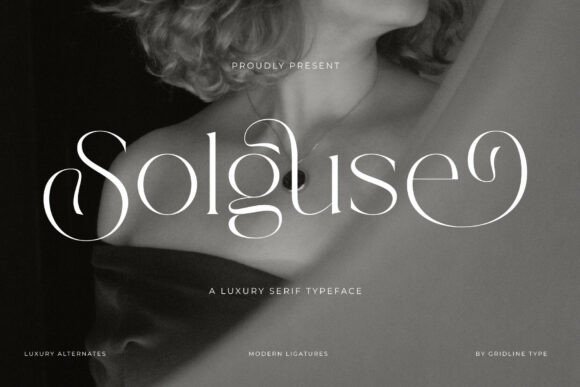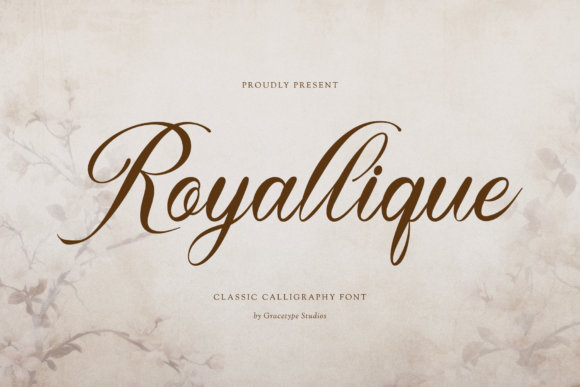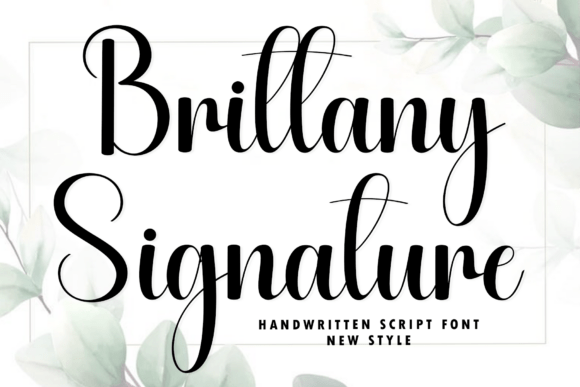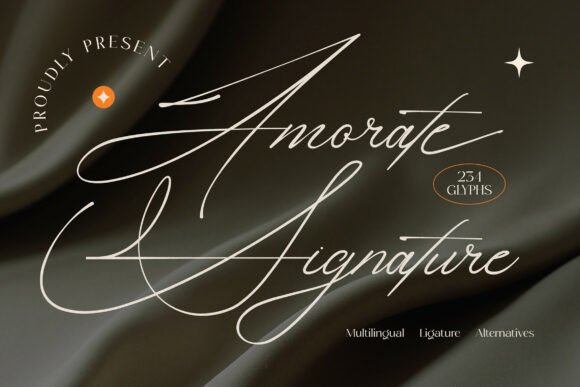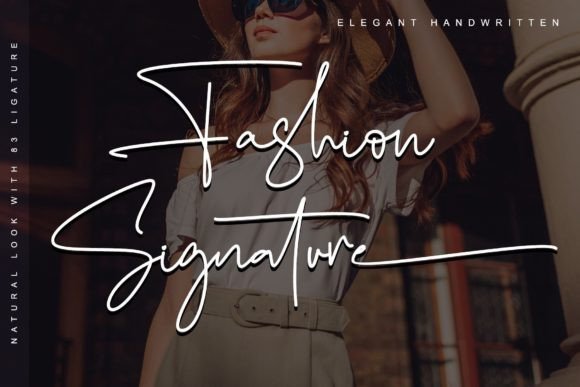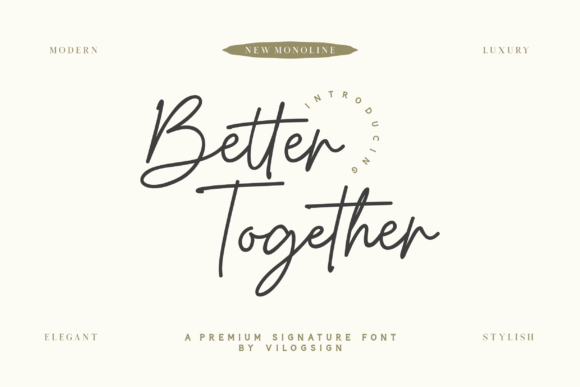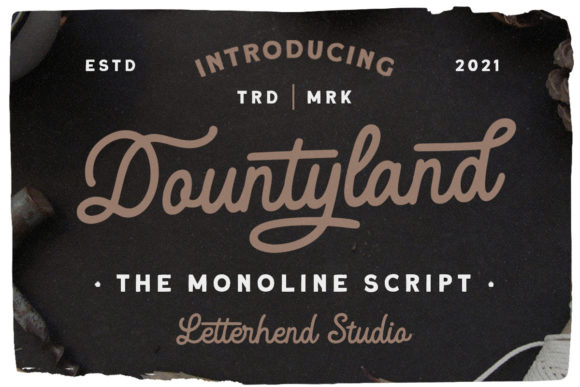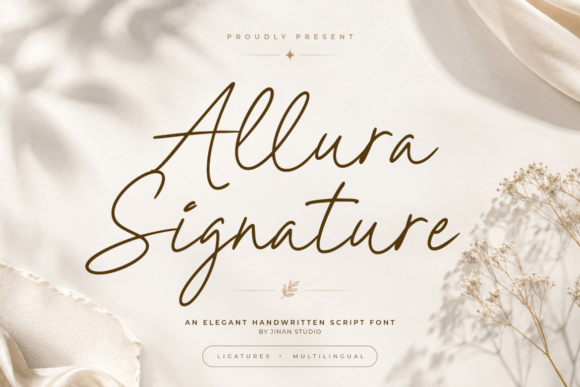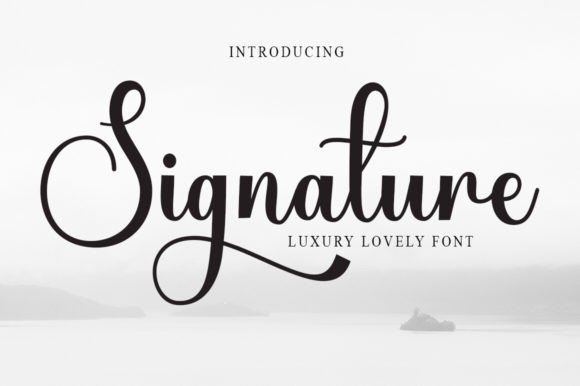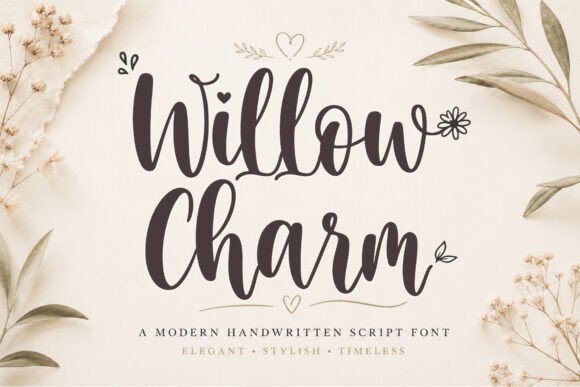
20 Graceful Signature Fonts for Logo Design (2026)
Signature fonts for logo design sell something no other style can: the feeling that a real person stands behind the brand. A flowing, hand-signed wordmark reads personal, premium and trustworthy, which is why founders, photographers and beauty brands reach for it. The best signature fonts for logo design stay legible while looking effortlessly hand-written.
This guide sorts 20 fonts by the look they give a logo, luxury signatures, modern monoline scripts, personal hand-signed faces and serif-script duos, so you can pick by use.
How to use signature fonts for logo design
A signature logo lives or dies on legibility. A few rules keep signature fonts for logo design readable and premium.
- Keep it short: a signature flatters a name or two words, not a sentence.
- Use the alternates: swashes and joining letters fine-tune the flow.
- Pair with a sans: set a clean sans tagline under the script for balance.
- Test small: thin connecting strokes can vanish at favicon size.
Luxury signature fonts for premium logos
Start here. These luxury signature fonts for logo design give a premium brand a refined, hand-signed wordmark.
Luxodia Signature
Luxodia Signature is a luxury signature font built for elegance. Among signature fonts for logo design it makes a premium hand-signed wordmark, with flowing strokes that read expensive. Keep it to the brand name and a clean sans tagline. The graceful flow stays legible at a generous size. For a premium brand that wants a luxury signature logo, Luxodia Signature is a refined script worth a close look.
Solguse
Solguse pairs poetic romance with high-fashion prestige. Among signature fonts for logo design it gives a beauty or fashion brand a runway-grade signature wordmark. Keep it to the name and a short accent, with a clean sans below. The romantic strokes read best large. For a fashion brand that wants a romantic, prestigious signature logo, Solguse is a graceful script worth trying.
Royallique
Royallique brings aristocratic sophistication to a layout. Among signature fonts for logo design it lends a luxury brand a regal, hand-signed flourish. Keep it to the brand name, lean on the swashes, and pair it with a clean sans for support. The ornate strokes want room. For a premium brand that wants a grand, aristocratic signature logo, Royallique is a striking script worth a look.
Brittany Signature
Brittany Signature carries timeless grace and effortless romance. Among signature fonts for logo design it makes a soft, romantic wordmark, good for weddings, beauty and lifestyle brands. Keep it to the name and a clean sans tagline. The flowing forms read warm at size. For a brand that wants a romantic, hand-signed logo, Brittany Signature is a lovely script worth trying.
Amorate Signature
Amorate is an elegant signature script with long, flowing strokes. Among signature fonts for logo design it gives a wordmark dramatic, sweeping movement. Keep it to a short name and use the extended strokes as a flourish, with a clean sans for support. The long forms want a generous size. For a brand that wants a sweeping, dramatic signature logo, Amorate Signature is a graceful script worth a closer look.
Modern monoline signature fonts
Monoline scripts keep an even stroke, so they stay legible small. These modern signature fonts for logo design read clean and current.
Fashion Signature
Fashion Signature is an enchanting handwritten monoline font. Among modern signature fonts for logo design its even stroke keeps it legible while still reading hand-signed, good for a fashion or beauty wordmark. Keep it to the name and a clean sans tagline. The monoline flow stays clear at smaller sizes. For a brand that wants a clean, modern signature logo, Fashion Signature is a graceful script worth a look.
Better Together
Better Together is a monoline script with a modern, current style. Among signature fonts for logo design its even weight reads clean and current, suiting a contemporary brand that wants a friendly signature. Keep it to the name and a clean sans for detail. The monoline forms stay legible small. For a modern brand that wants a clean, approachable signature logo, Better Together is a likeable script worth trying.
Dountyland
Dountyland is a bold, elegant monoline script with a vintage style. Among signature fonts for logo design it adds a retro, hand-signed confidence, good for a heritage or craft brand. The bold even stroke reads clearly at size. Keep it to the name and a clean sans for support. For a brand that wants a bold, vintage signature logo, Dountyland is a characterful script worth a look.
Allura Signature
Allura Signature is a modern, elegant handwritten script. Among modern signature fonts for logo design it reads graceful and current, a flexible signature for beauty, fashion and lifestyle brands. Keep it to the name and a clean sans tagline. The flowing forms stay legible at a comfortable size. For a brand that wants a modern, elegant signature logo, Allura Signature is a graceful script worth trying.
Signature scripts with a personal touch
For a warm, human feel, these hand-signed scripts give a logo real personality and a founder’s signature.
Signature (Cursive)
This Signature font is a heartfelt, beautifully flowing cursive. Among signature fonts for logo design it gives a warm, personal wordmark with a genuine hand-written feel. Keep it to the name and a short line, since cursive joins blur small, paired with a clean sans. The gentle flow reads friendly. For a brand built on a personal, caring story, this cursive Signature is a tender script worth a look.
Willow Charm
Willow Charm is an elegantly designed handwritten font with warmth and sophistication. Among signature fonts for logo design it brings a charming, personal touch to a wordmark, good for a boutique or lifestyle brand. Keep it to the name and a clean sans for detail. The handwritten forms read warm at size. For a brand that wants a charming, hand-signed logo, Willow Charm is a lovely script worth trying.
Magic Action
Magic Action is an enchanting handwriting-inspired font. Among signature fonts for logo design it gives a wordmark a spontaneous, marker-signed energy, suiting a creative or youthful brand. Keep it to the name and a punchy accent, with a clean sans for support. The lively forms read best large. For a brand that wants an energetic, hand-written signature logo, Magic Action is a fun script worth a look.
Cruel Summer
Cruel Summer brings sophistication and elegance to a hand-signed wordmark. Among signature fonts for logo design it reads stylish and a little editorial, good for a fashion or beauty brand. Keep it to the name and a clean sans tagline. The elegant forms read polished at size. For a brand that wants a stylish, signature-style logo, Cruel Summer is a graceful script worth trying.
Signature (Minimal)
This Signature font is the epitome of sophisticated minimalism, with a sleek, pared-back hand. Among signature fonts for logo design it reads clean and modern, a restrained signature for a brand that wants subtlety. Keep it to the name and a clean sans for detail. The minimal forms stay legible small. For a brand that wants a sleek, minimal signature logo, this Signature is a refined script worth a look.
Signature serifs and duos for a full logo
For structure plus flourish, these signature serifs and duos pair a script with a serif so a logo has both polish and a hand-signed accent.
Montegar
Montegar is a modern luxury serif for premium branding and editorial work. Among signature fonts for logo design it is the serif anchor, giving a hand-signed logo a structured partner for the tagline and supporting text. Use the serif for structure and a script for the signature line. The refined forms read premium. For a brand that wants a serif to balance its signature, Montegar is a graceful font worth trying.
Chatos Original
Chatos Original is a refined duo that pairs an elegant serif with a script. Among signature fonts for logo design the duo gives you a structured serif for the name and a signature script for the accent, drawn to agree. Use the serif for the wordmark and the script for a hand-signed line. The pairing reads coordinated. For a brand that wants polish and a signature in one buy, Chatos Original is a smart duo worth a look.
Palm Champagne
Palm Champagne is a stylish handwritten duo that blends elegance with ease. Among signature fonts for logo design it offers a signature script plus a partner, so a logo gets a hand-signed name and a tidy support face. Use the script for the name and the partner for the tagline. The relaxed forms read effortless. For a brand that wants an easy signature duo, Palm Champagne is a lovely set worth trying.
Selora
Selora is a classic editorial serif with sophistication. Among signature fonts for logo design it plays the editorial serif partner, anchoring a signature logo with a magazine-grade calm for taglines and supporting type. Use the serif for structure and a script for the signature. The refined forms read polished. For a brand that wants an editorial serif beside its signature, Selora is a graceful font worth a look.
Morgel Eentrialy
Morgel Eentrialy is a sophisticated serif duo combining timeless cuts. Among signature fonts for logo design it gives a coordinated serif pairing to structure a logo, leaving a signature script to add the hand-signed flourish. Use the serif duo for the wordmark and support, and a script for the accent. The matched forms read tidy. For a brand that wants a serif backbone for its signature, Morgel Eentrialy is a smart duo worth trying.
Elegant Signature
Elegant Signature is a refined, timeless serif display font. Despite the name it is a serif, and among signature fonts for logo design it anchors a hand-signed identity with a polished display wordmark for the brand name. Pair it with a flowing script for the actual signature line. The refined forms read premium at size. For a brand that wants a serif wordmark beside a signature, Elegant Signature is a graceful display serif worth a look.
Fonts FAQ
What are the best signature fonts for logo design in 2026?
The best signature fonts for logo design stay legible while looking hand-written. From this roundup, Luxodia Signature and Solguse make luxury wordmarks, Fashion Signature and Better Together keep it clean with a monoline, and Chatos Original pairs a script with a serif. Keep the signature to the brand name and add a clean sans for the tagline.
Are signature fonts good for logos?
Yes, a signature script suits founder-led, personal and boutique brands because it reads warm and trustworthy, like a real autograph. The key is legibility: keep the signature to the name or two words, use the alternates to tidy the joins, and pair it with a clean sans so the rest of the identity stays clear.
How do I keep a signature logo readable when small?
Choose a signature with a fairly even stroke, such as a monoline script, since very thin connecting lines can disappear at small sizes. Keep the wordmark short, give it room, and test it at favicon and app-icon size. If the joins break up, switch to a bolder monoline signature or add a clean sans version for tiny uses.
Choosing the right signature font for your logo
Choosing signature fonts for logo design comes down to legibility and warmth: pick a flowing face that still reads at small sizes, keep it to the brand name, and pair it with a clean sans for the tagline. Use the alternates to tidy the joins, and the logo reads personal and premium.